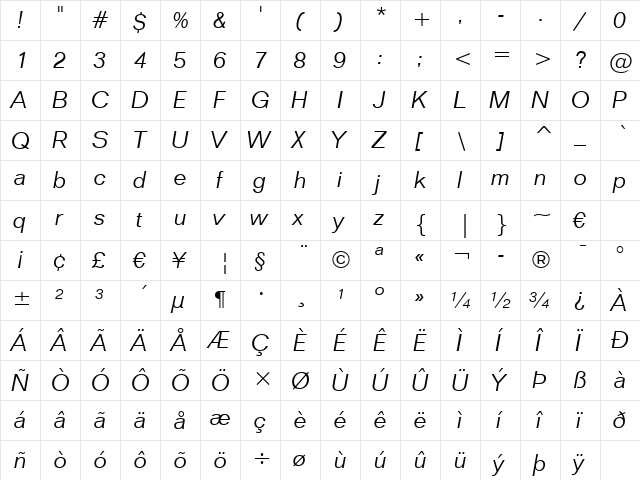
Folio Lt BT Light Italic Font Preview
Design Context for Folio Lt BT Typeface
Folio Lt BT takes a measured approach to typography — its balanced proportions and neutral character make it a reliable workhorse for both digital and print work. The dynamic lean of this cut emphasises speed and emphasis in any layout. The delicate stroke weight brings airiness and refinement to layouts.
Pro Tip: Try Folio Lt BT for annotation and caption copy alongside an upright companion — the contrast in angle creates a dynamic but ordered typographic system.